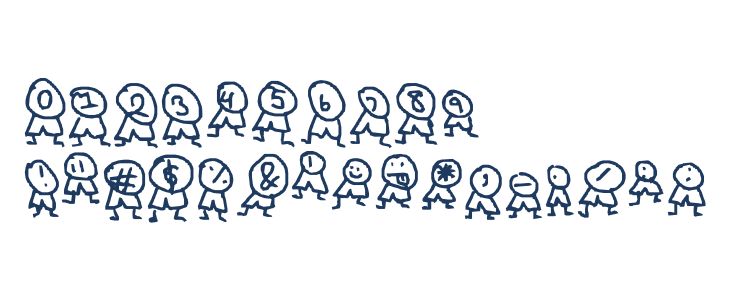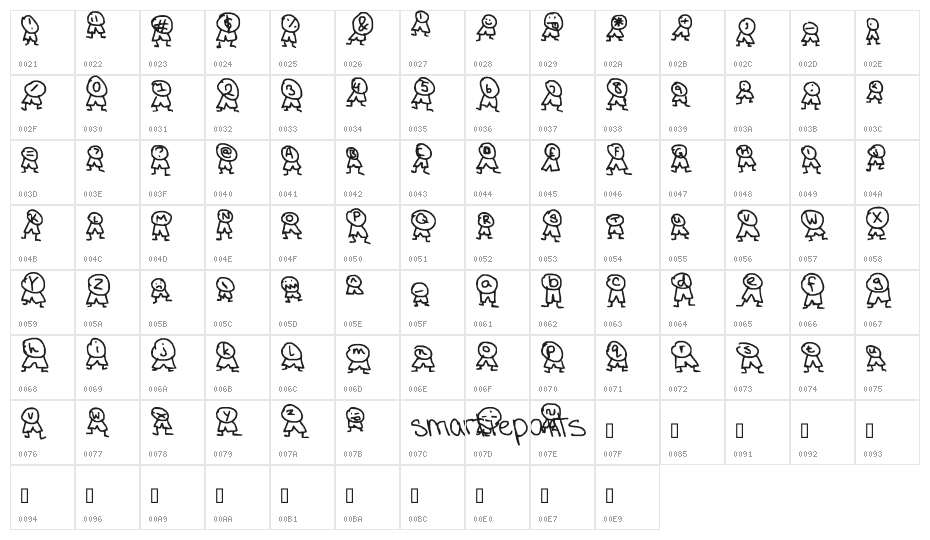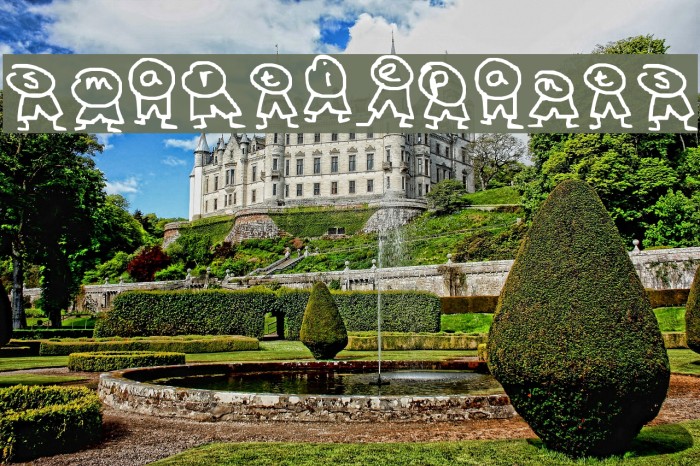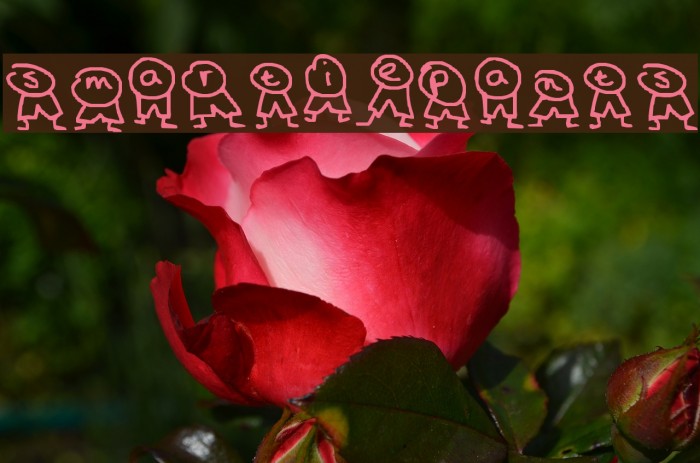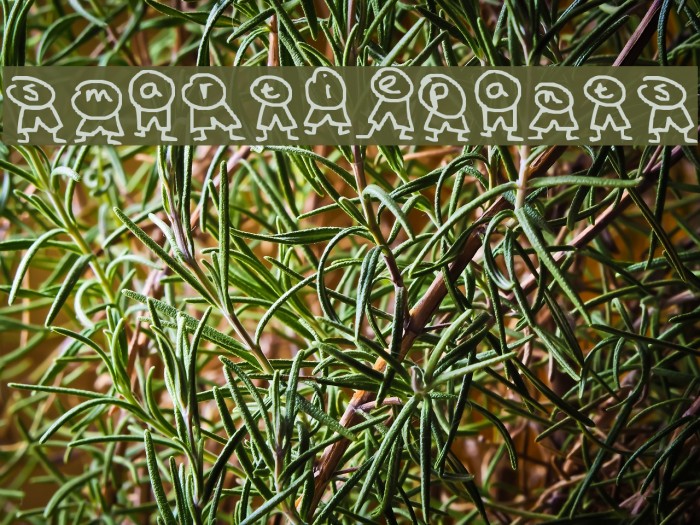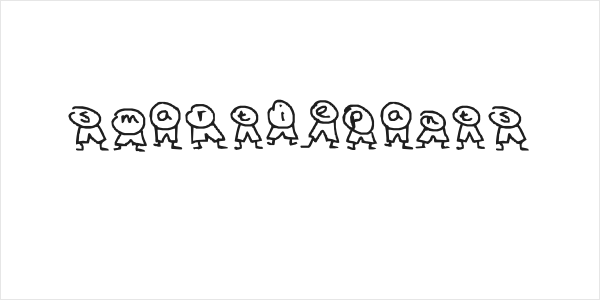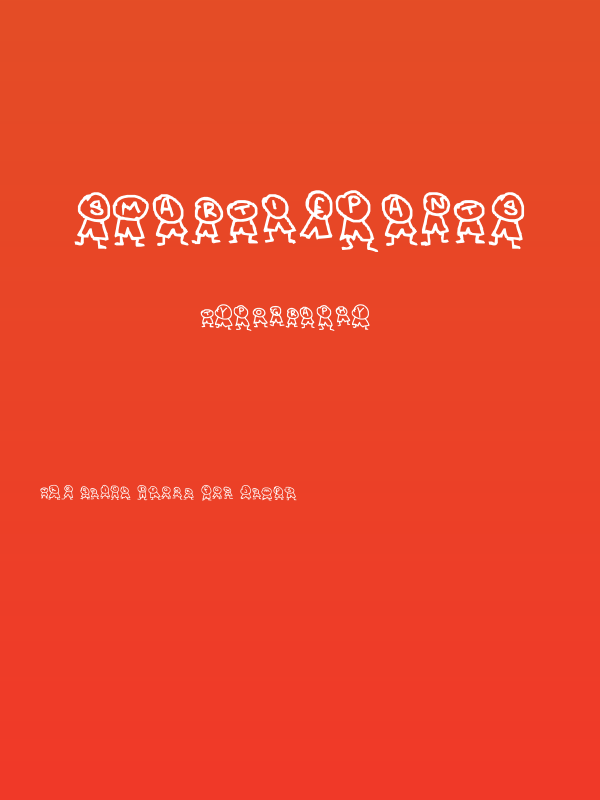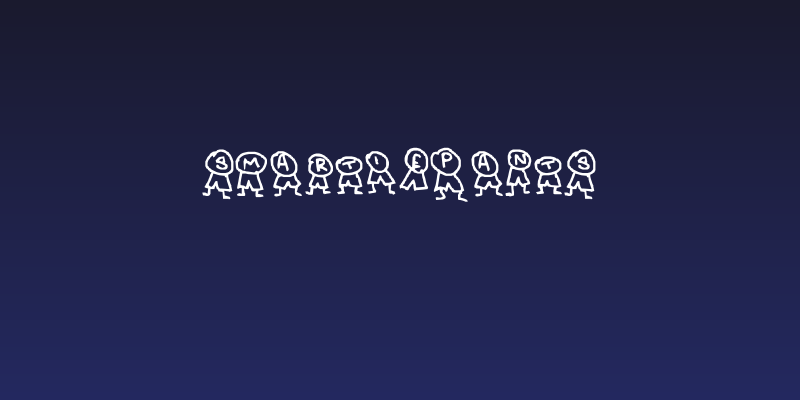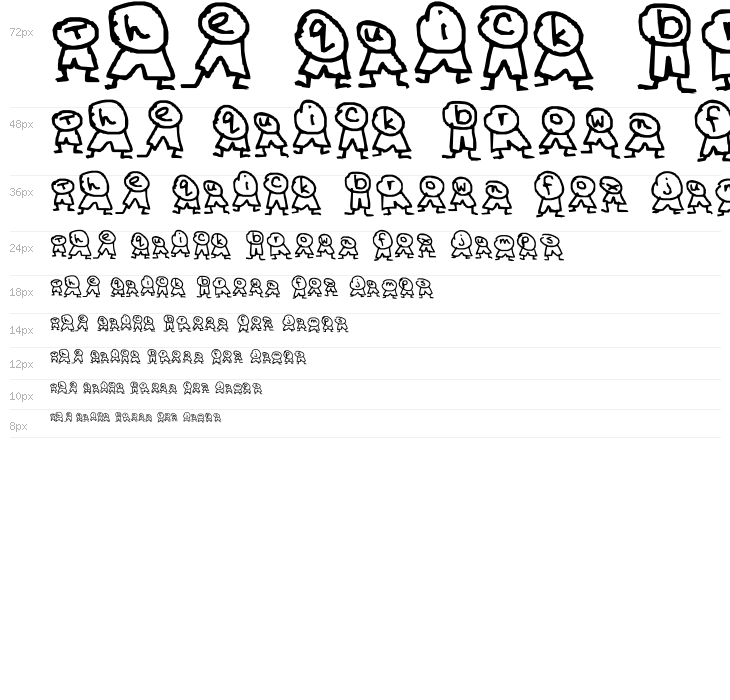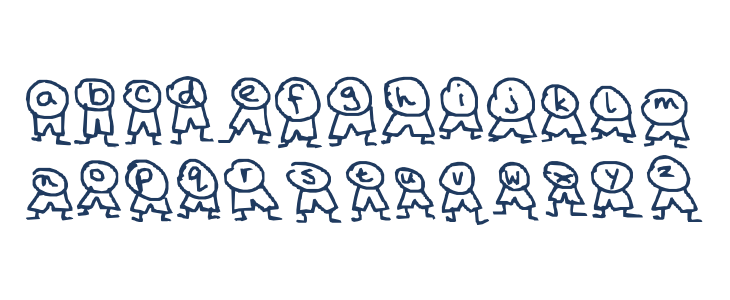
smartiepants Font
smartiepants Description
This playful and whimsical font features characters with a unique design where each letter and number is depicted as a cartoonish figure with legs. The style is hand-drawn, giving it a casual and fun appearance. The letters are bold and rounded, with a consistent thickness throughout, which adds to its approachable and friendly vibe. The characters are evenly spaced, ensuring readability while maintaining the quirky aesthetic. This font is perfect for projects that require a lighthearted and informal touch, such as children's books, playful branding, or creative posters.
| Overall Style | Whimsical |
| Proposed Projects | Ideal for children's books, playful branding, creative posters, and informal designs. |